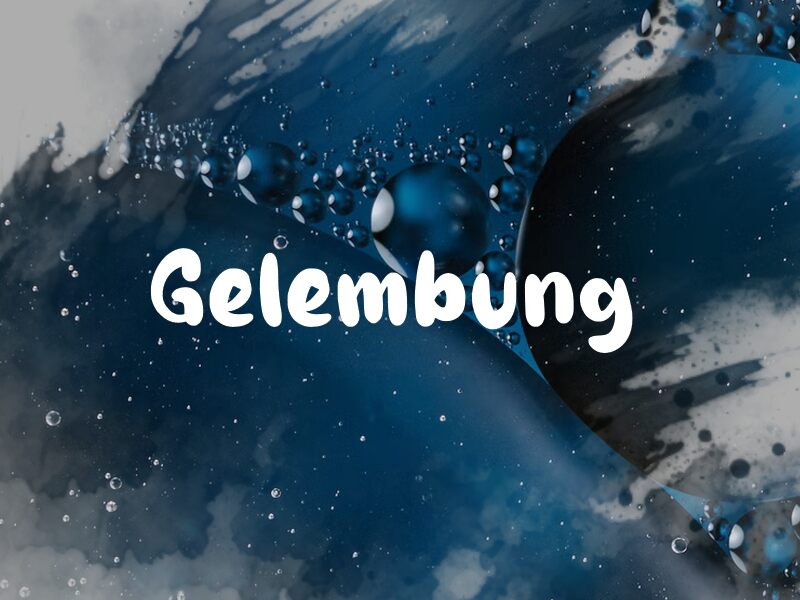
Gelembung is a delightful, cartoonish font that exudes a playful, whimsical charm. Designed by wep, this display typeface boasts rounded, bubbly letterforms that instantly grab attention. The font's organic, hand-drawn aesthetic lends it a sense of warmth and approachability, making it well-suited for a variety of design applications.
Gelembung's quirky, highly distinctive style would shine in children's books, greeting cards, and promotional materials targeting a fun, youthful audience. Its unique character could also add a touch of personality to branding, logos, and website headers. The font's bold, expressive forms make it a versatile choice for headlines, titles, and accents, where it can inject a dose of energy and personality into the design.